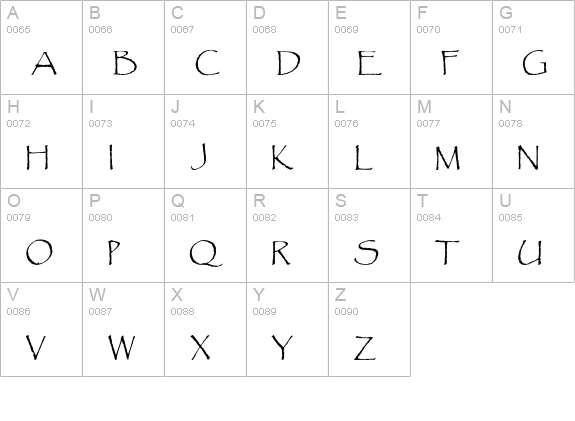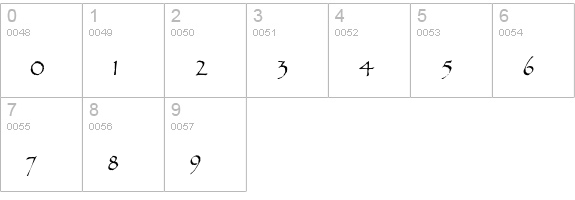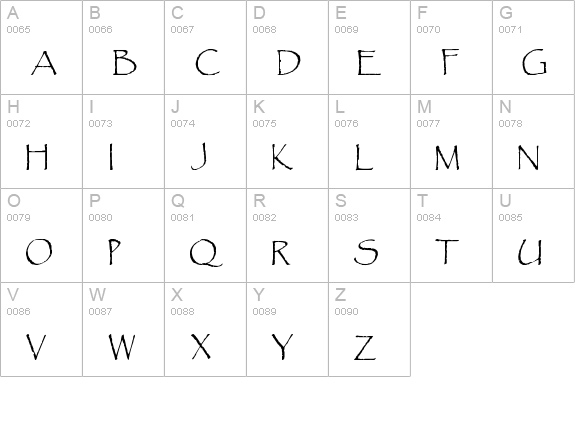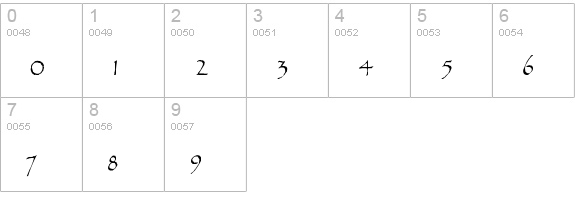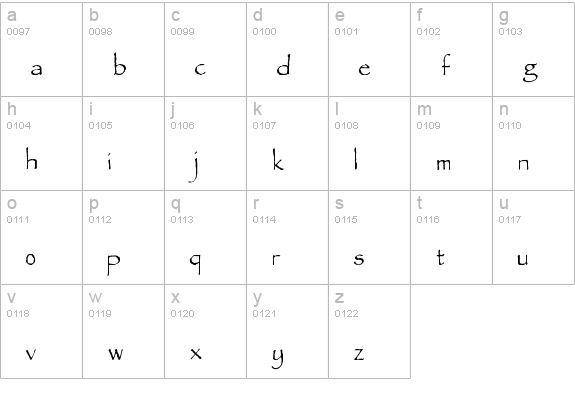
Paradox-Light Font Details
Paradox-Light is a refined, elegant variant in the Paradox typeface family \xE2\x80\x94 well suited to elegant body text, refined sub-headings, and luxury branding.
Introducing Paradox-Light, a stunning and captivating font that effortlessly merges the realms of simplicity and sophistication. With its sleek and clean lines, this font exudes a sense of modernity while still maintaining an air of elegance. Paradox-Light is a font that paradoxically enchants and captivates, making it the perfect choice for a wide range of projects. Whether you're designing a logo, creating eye-catching headlines, or crafting a memorable branding identity, this font will effortlessly elevate your work to new heights. Not only does Paradox-Light boast a visually striking appearance, but it also offers unparalleled versatility. Its carefully crafted letterforms ensure optimal legibility, making it suitable for both print and digital applications. The font's delicate curves and precise spacing create a harmonious flow, ensuring a polished and professional finish to any design. And the best part? Paradox-Light is available to you for free! That's right, you can download this incredible font at FontsMarket.com, where it is freely accessible to all. Say goodbye to expensive font licenses and hello to the freedom of creativity. Paradox-Light opens up a world of possibilities, allowing you to bring your visions to life without any constraints. So why wait? Download Paradox-Light today and let its captivating beauty and versatility transform your designs. Whether you're a seasoned designer or just starting out, this font will undoubtedly become an invaluable tool in your creative arsenal. Don't miss out on the opportunity to freely explore the endless possibilities that Paradox-Light has to offer.